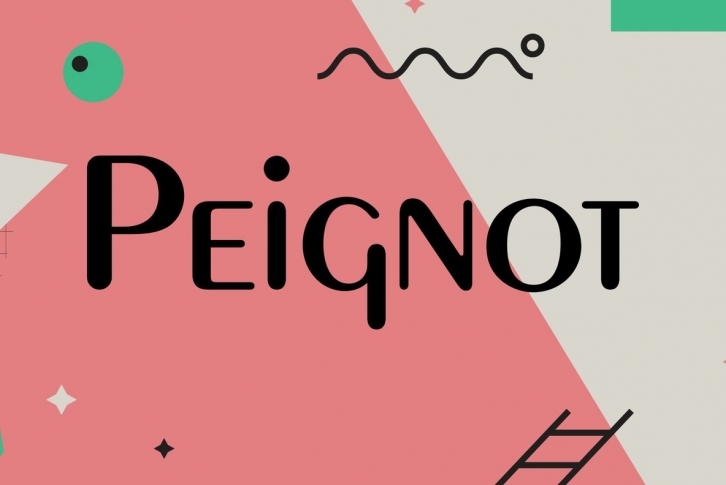
Peignot was designed by Adolphe Mouron Cassandre and Charles Peignot in 1936. Peignot is a classic type design that is well known for its avante garde lowercase letters. Great from retro and fashion themed projects.